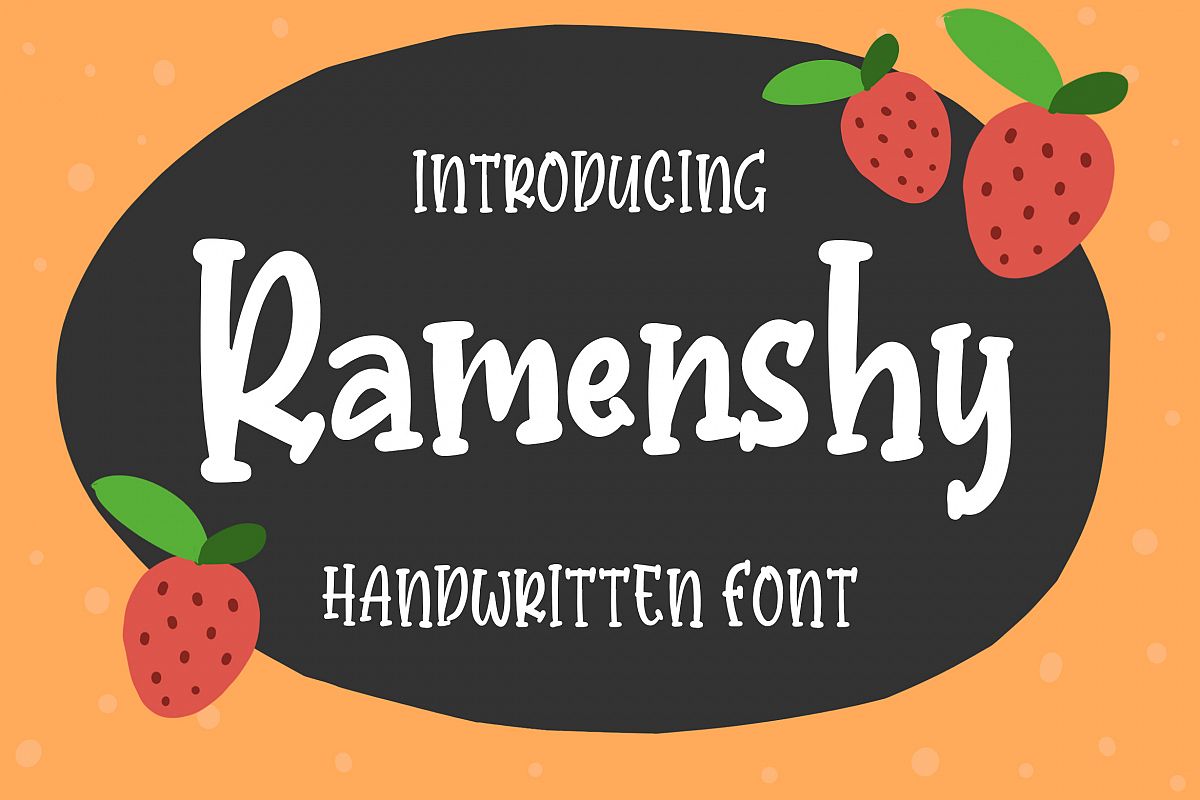
Ramenshy - Handwritten Font
Introducing of our new product the name is Ramenshy Handwritten Font. Ramenshy good for Food theme, logotype, label, badge, headline, signature, packaging and any more.